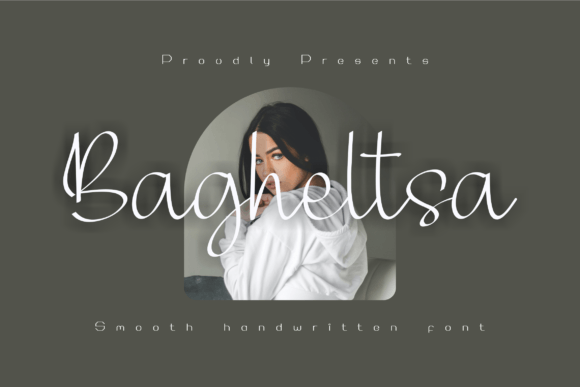
Unleash the power of Bagheltsa - a font that incarnates elegance, class, and modernity, perfectly crafted to captivate your audience. This mesmerizing script font is an absolute treasure for fashionistas and apparel designers, adding an irresistible charm to your projects. Whether you're creating logos, branding, magazines, or social media posts, Bagheltsa will elevate your designs to new heights.
With its bold and distinctive letterforms, Bagheltsa commands attention and leaves a lasting impression. Its clean lines and sophisticated curves bring a touch of sophistication to any project, making it the perfect choice for those seeking to make a statement. Dive into the world of Bagheltsa and discover the endless possibilities it holds for your creative endeavors.
Imagine your designs adorned with the exquisite strokes of Bagheltsa. Whether it's an album cover that resonates with the soul or an advertisement that captivates the senses, Bagheltsa will transform your projects into masterpieces. Its versatility extends beyond the digital realm, making it an exceptional choice for branding and logos that demand attention.
Bagheltsa is more than just a font; it's an artistic expression that speaks volumes. Its bold personality and captivating presence will make your designs shine, leaving an unforgettable mark on your audience. Experience the transformative power of Bagheltsa today and unlock a world of creative possibilities.